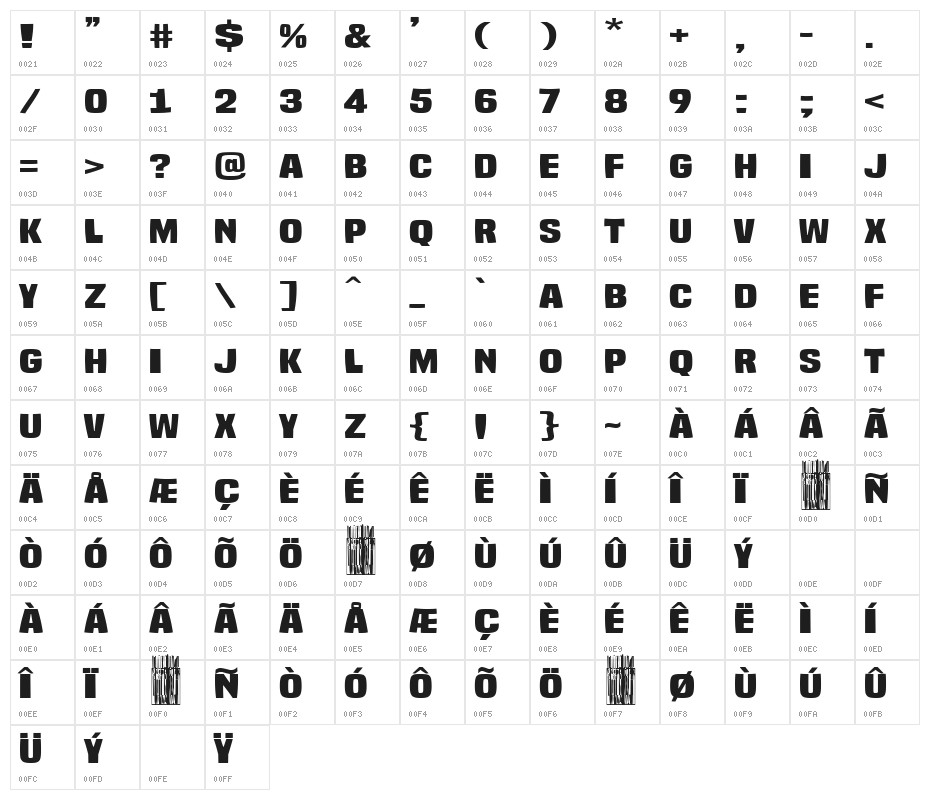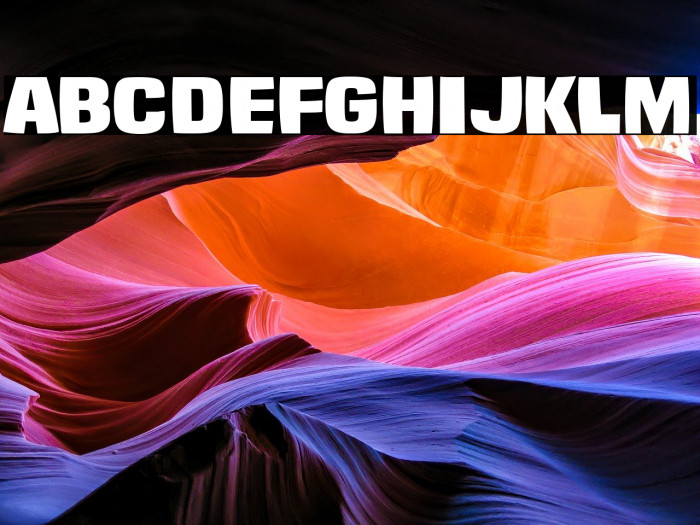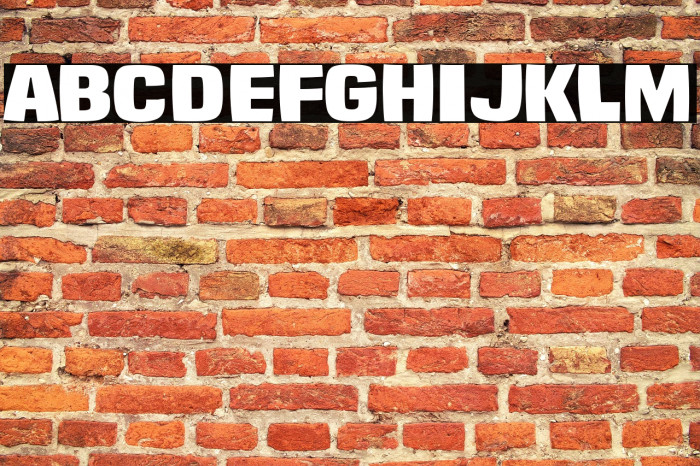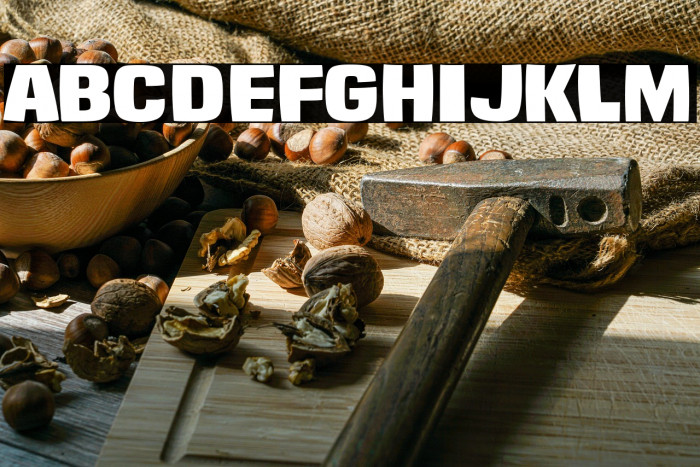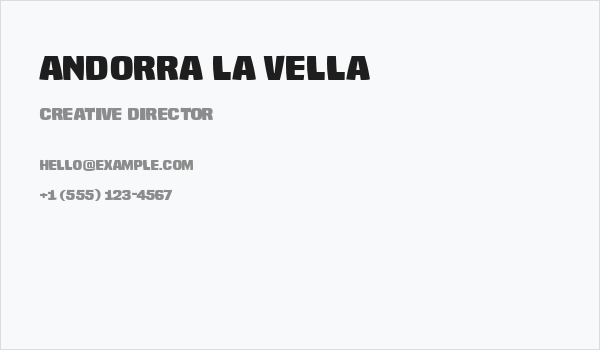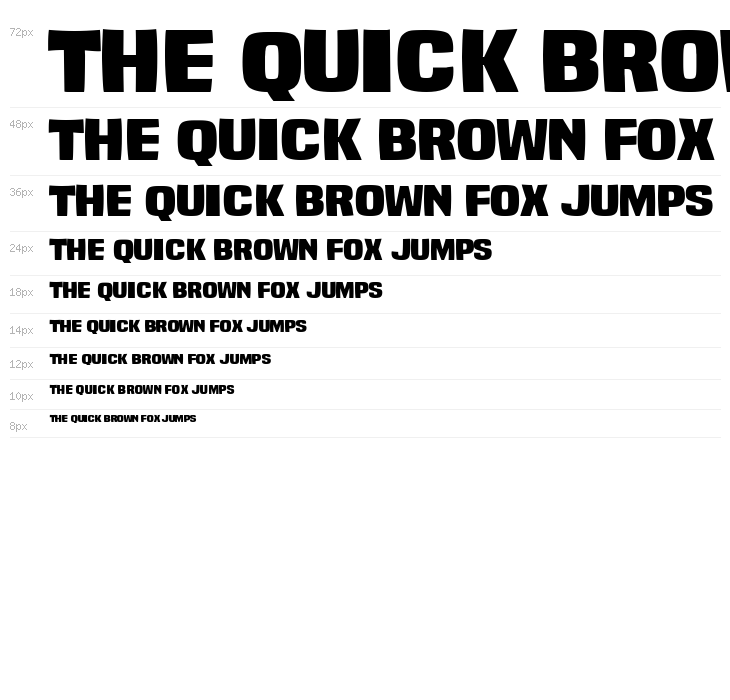
Andorra la Vella Font
Andorra la Vella Description
This font features bold, thick strokes with a strong presence, making it ideal for attention-grabbing designs. The characters are uniformly wide, with a slightly condensed appearance that enhances their impact. The uppercase letters are particularly striking, with a robust and confident style. The numbers and special characters maintain the same boldness, ensuring consistency across all elements. The font's design is clean and modern, with a touch of vintage flair, making it versatile for various creative projects.
| Proposed Projects | Ideal for headlines, posters, branding, and any design requiring a bold statement. |